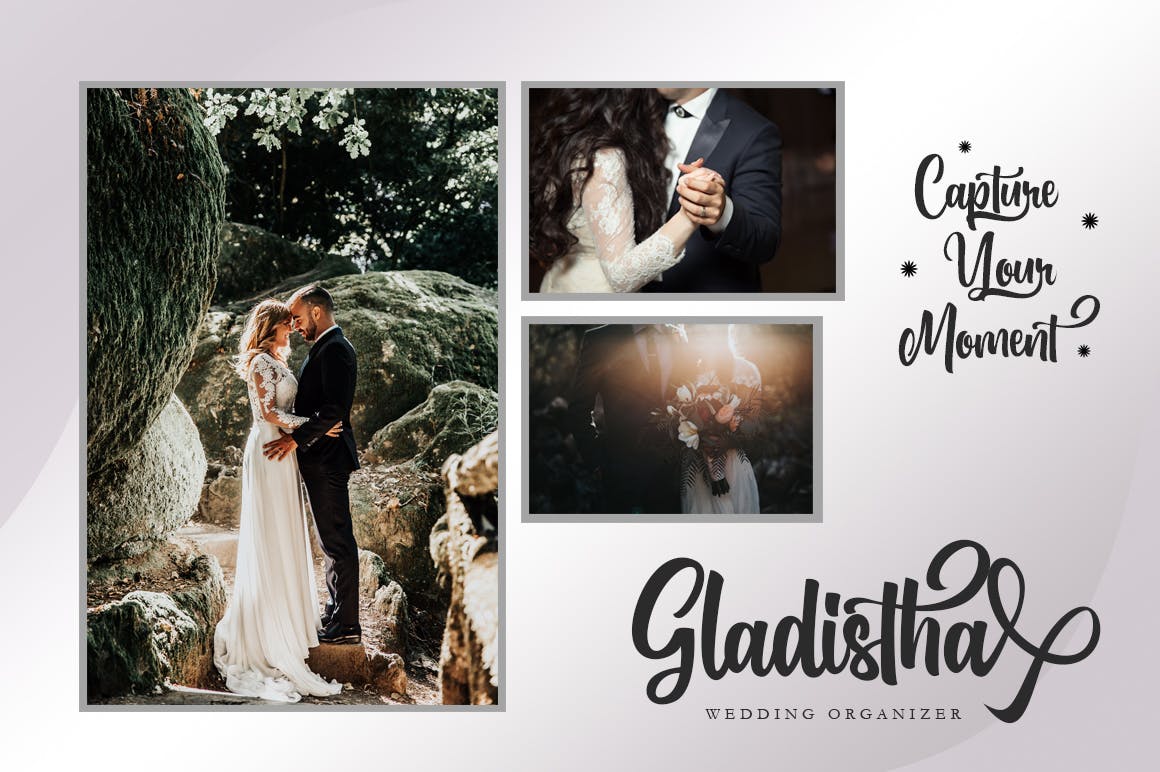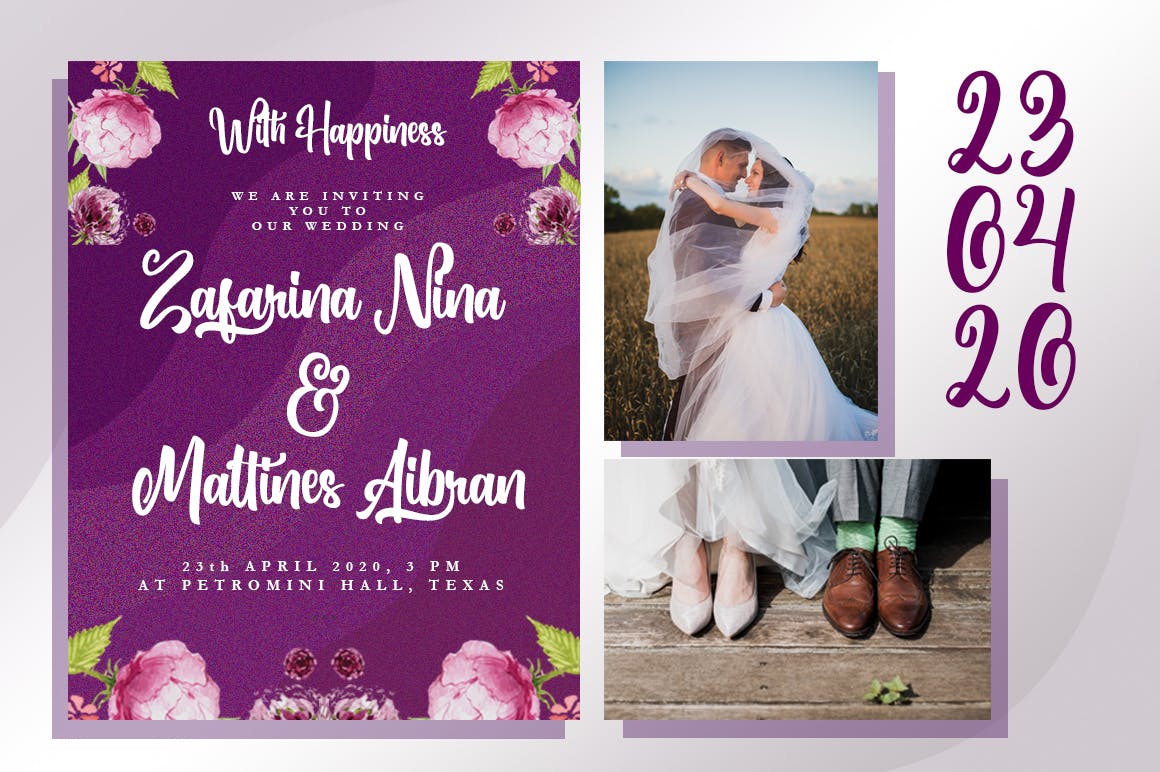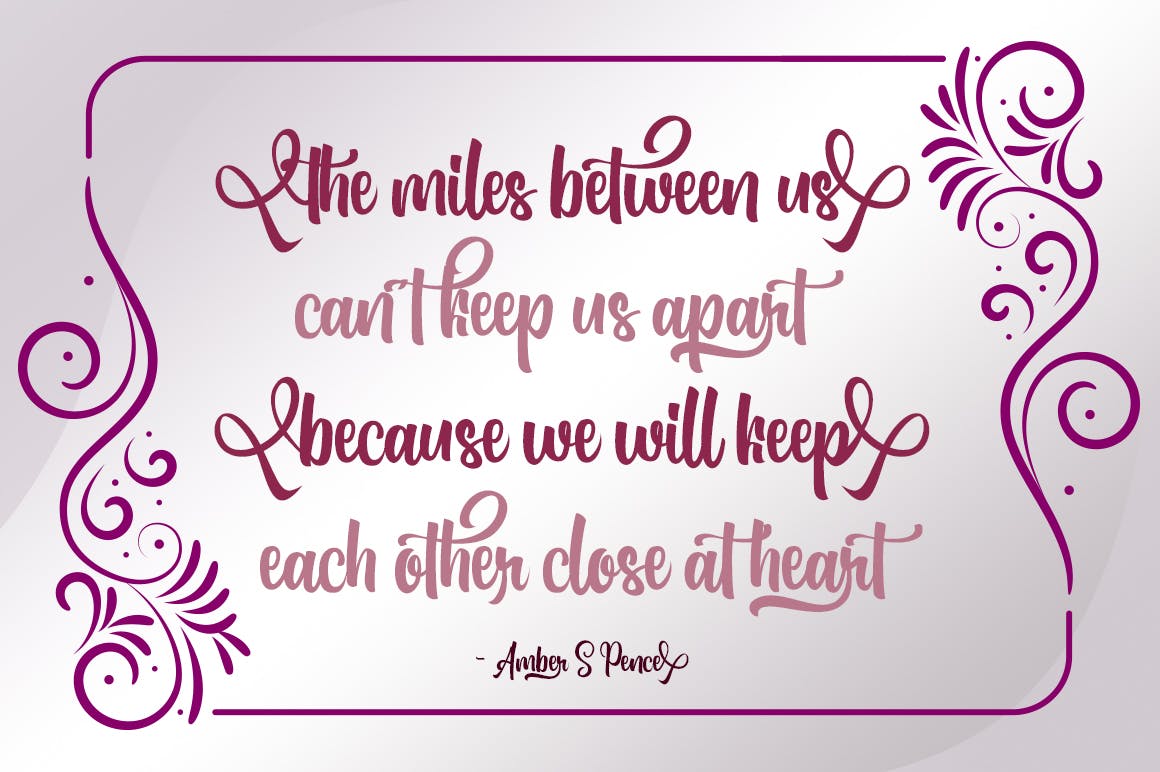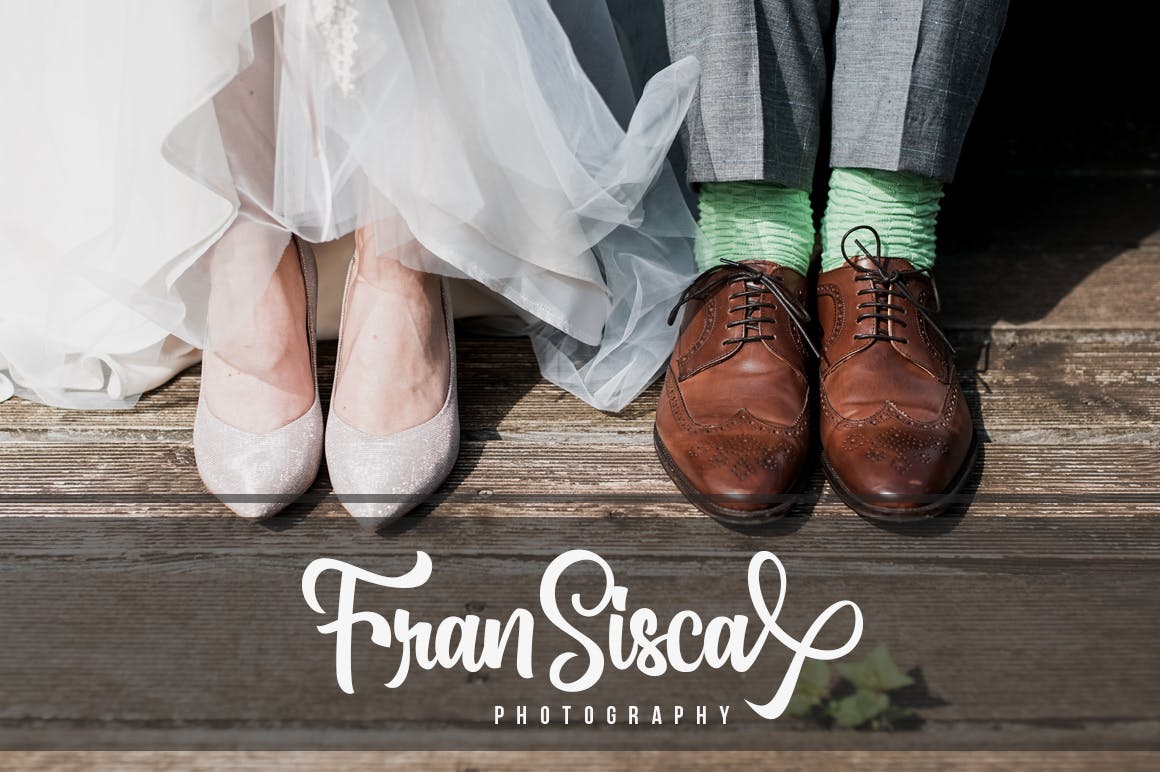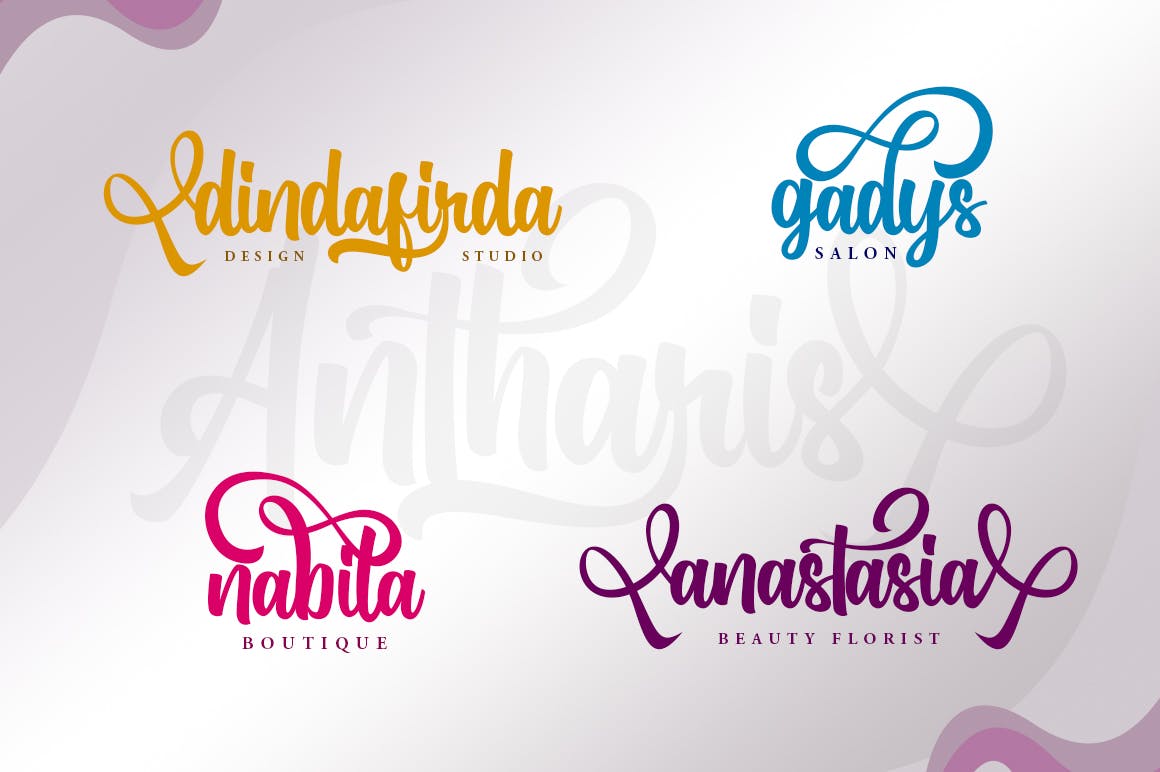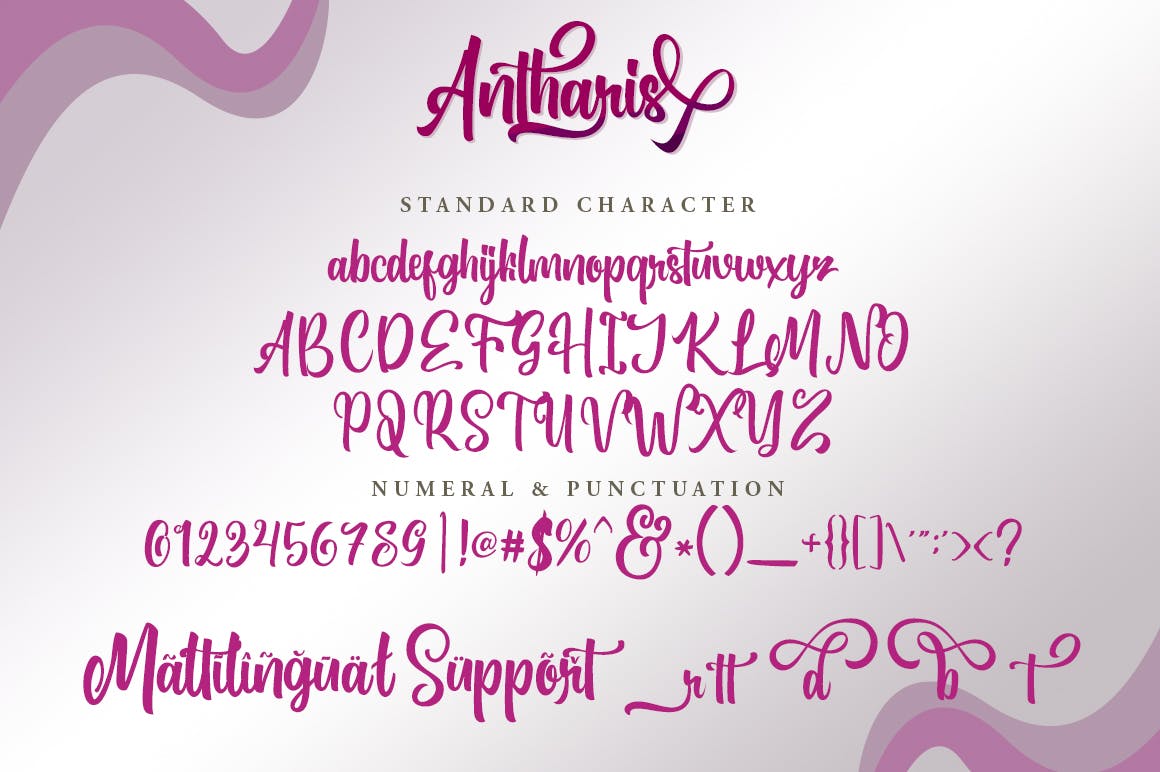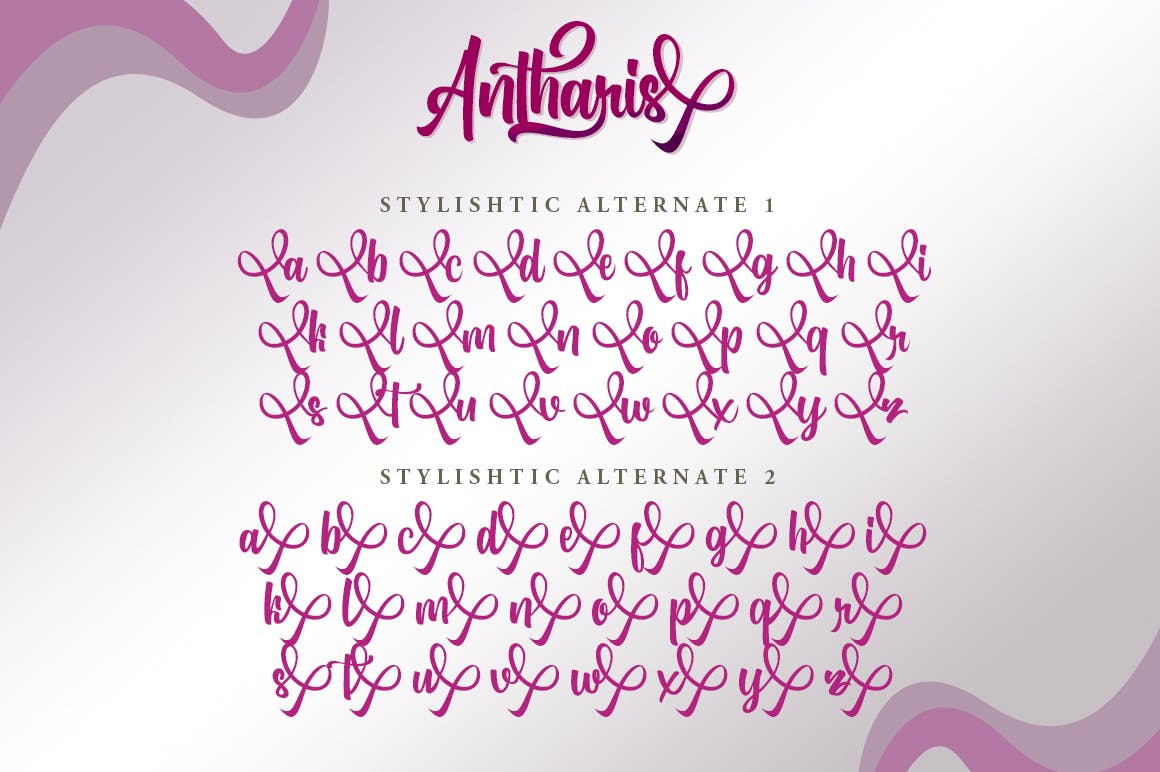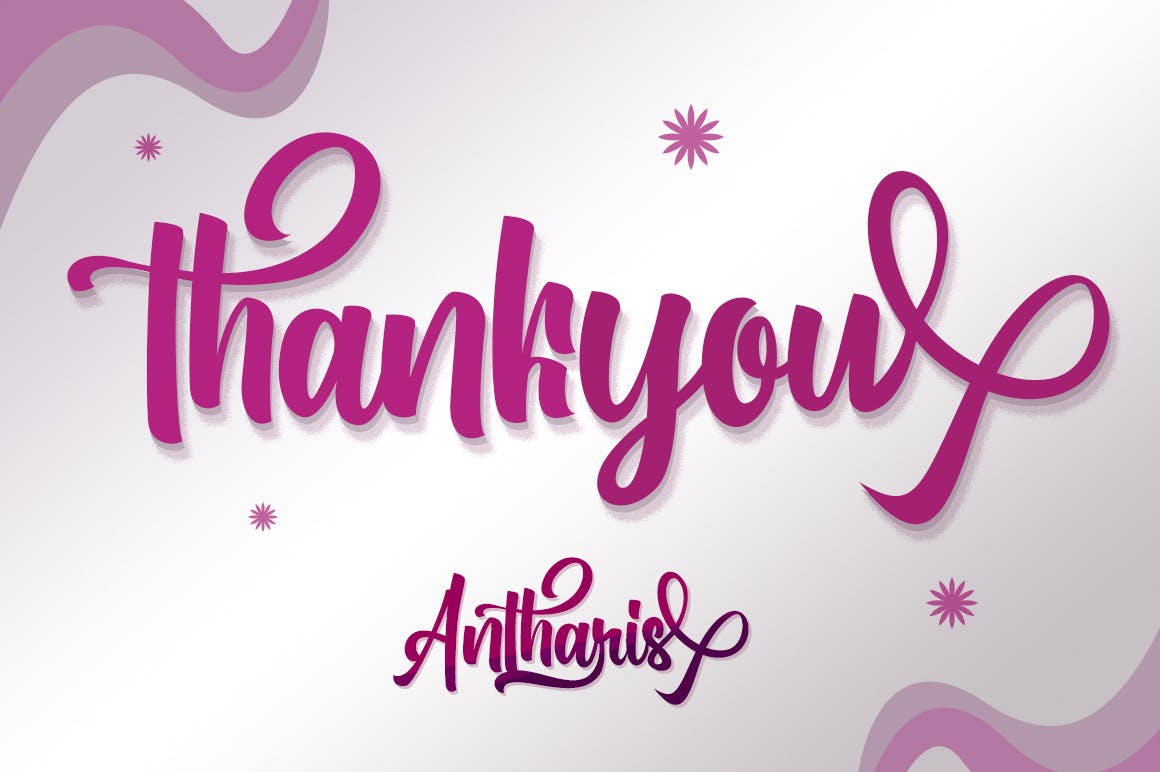
Free Demo Antharis Script Font
Free Demo Antharis Script Font is a magical script font. The designer carefully created with an elegance touch for this font. It will increase the value of your project to a high level and look more professional. Also, It is suitable for branding, headings, wedding designs, invitations, signatures, logos, labels, and much more! This demo font comes with two format files which are OTF and TTF, go download it and install on your devices. However, it is only being allowed for a personal license. But, don’t worry you can get more features by purchasing the premium version.